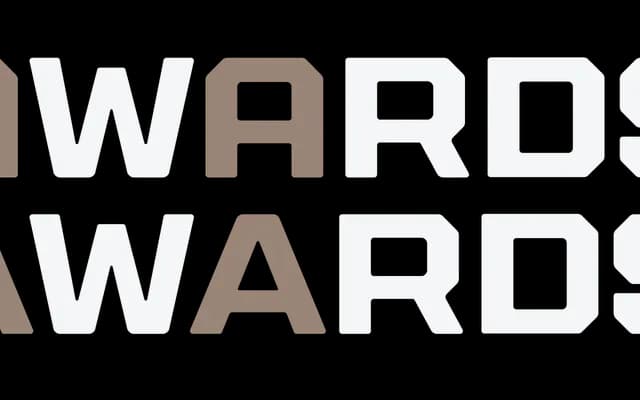
Bulward
An all-caps display family of 30 styles built on the varsity block letter archetype, with softened counters and cast-metal texture giving it approachable weight.
Designed by Darrin Crescenzi and released in 2024, Bulward takes the varsity block letter as its starting point and layers in the slightly worn edges of cast metal type for a rougher, more characterful result. Subtly rounded counter forms temper what could be an aggressively heavy appearance, lending the face warmth alongside its considerable presence. The family ships as 30 styles with a three-axis variable font in beta, covering Latin European languages in .otf, .woff, .woff2 and .ttf formats.
An all-caps display face drawing on varsity block lettering and cast metal type traditions, placing it firmly in display; the slab-like weight and block construction situate it within a slab-inflected display subcategory.